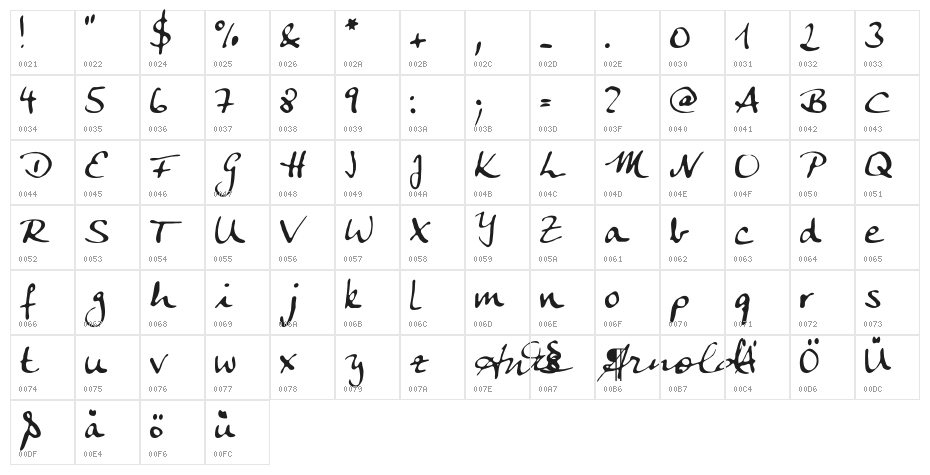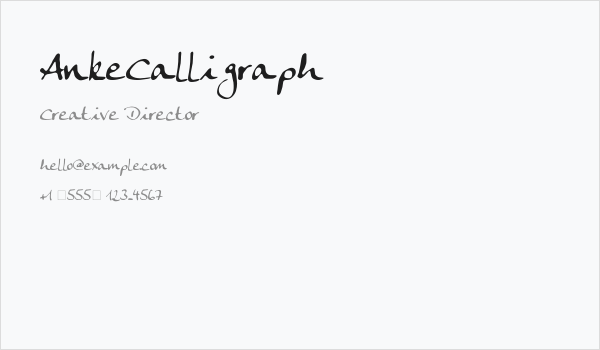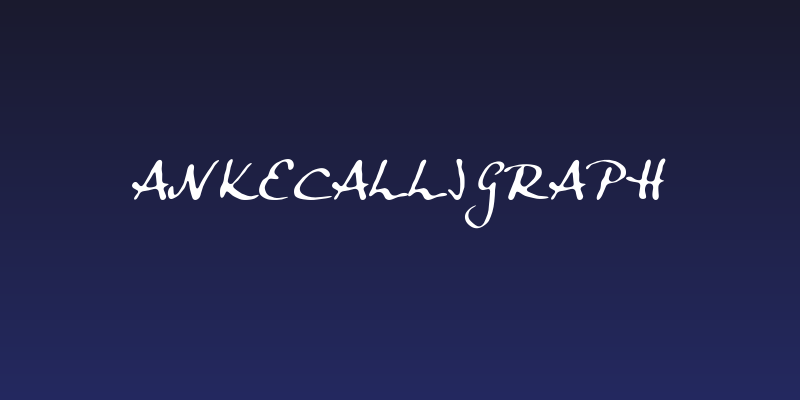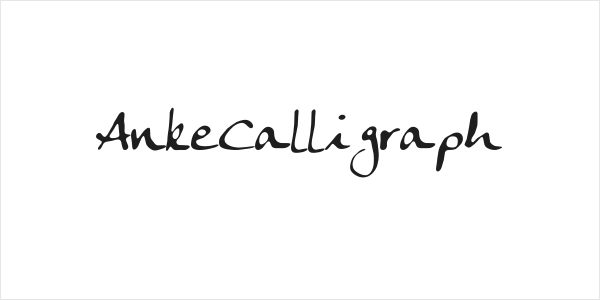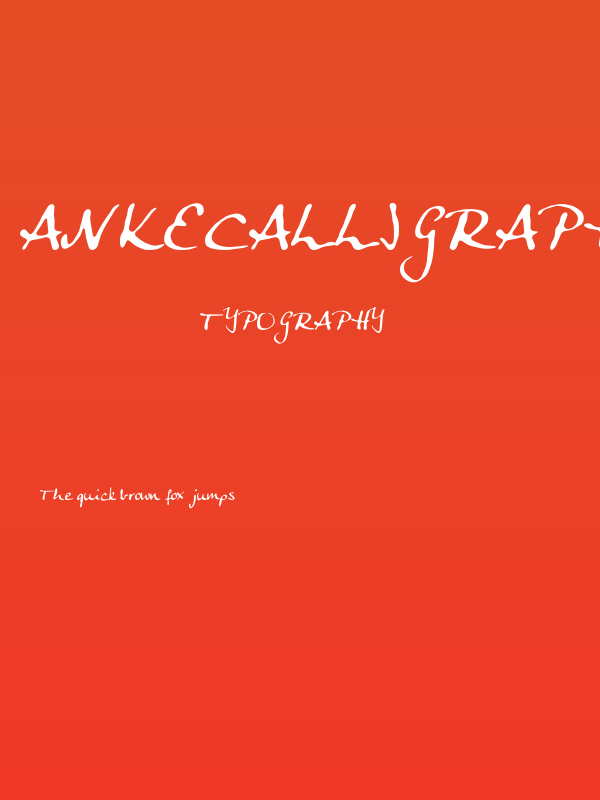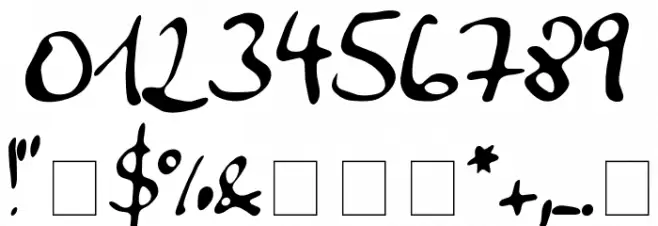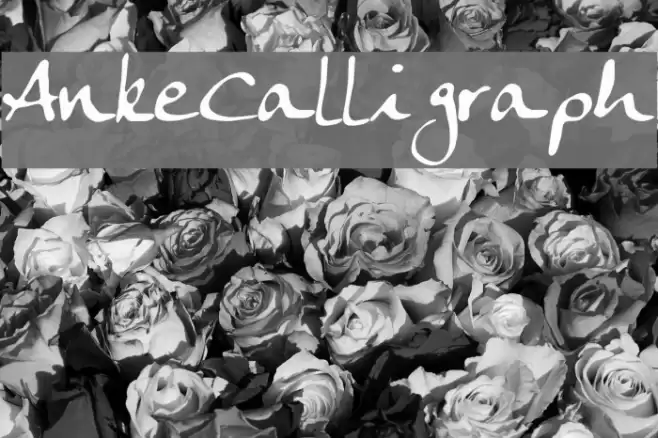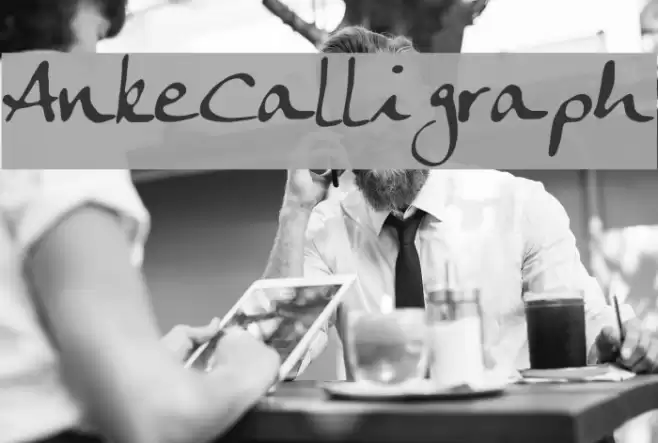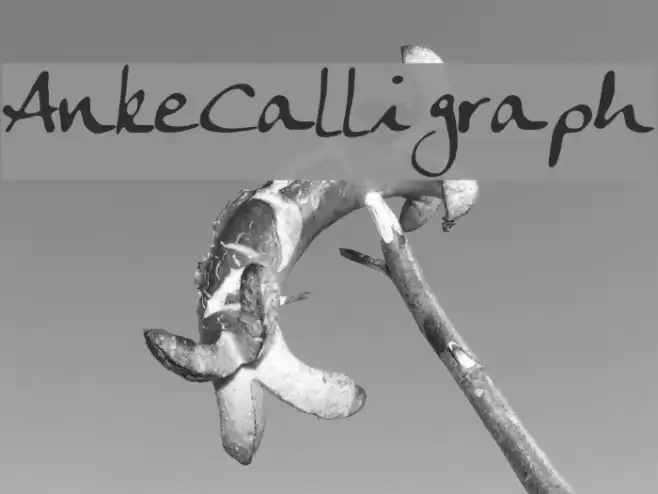
AnkeCalligraph Font
AnkeCalligraph Description
This font exudes a lively and artistic flair, characterized by its fluid and dynamic strokes that mimic the natural flow of handwriting. The uppercase letters are bold and expressive, with varying stroke widths that add a sense of movement and energy. The lowercase letters maintain a consistent style, with some letters featuring unique loops and curves that enhance the font's playful nature. The numerals are equally dynamic, with a slightly whimsical touch that complements the overall design. Special characters are crafted with the same attention to detail, ensuring a cohesive look across all elements. This font is perfect for projects that require a personal and creative touch, making it ideal for artistic endeavors, invitations, and branding that seeks to convey a sense of individuality and charm.
| Overall Style | Artistic, Playful |
| Use Case | Invitations, Artistic projects, Branding |
| Proposed Projects | Ideal for invitations, artistic projects, branding, and any creative work needing a personal touch. |